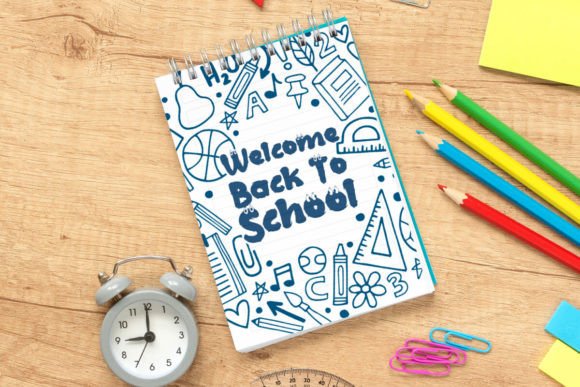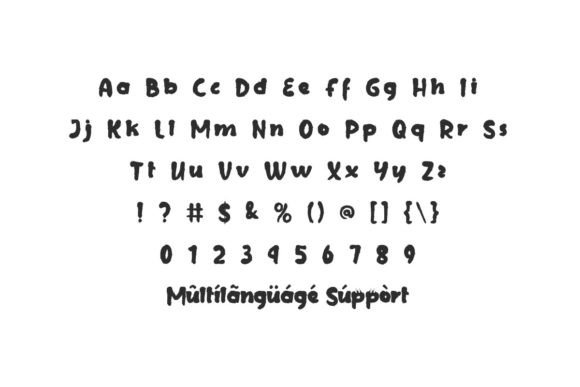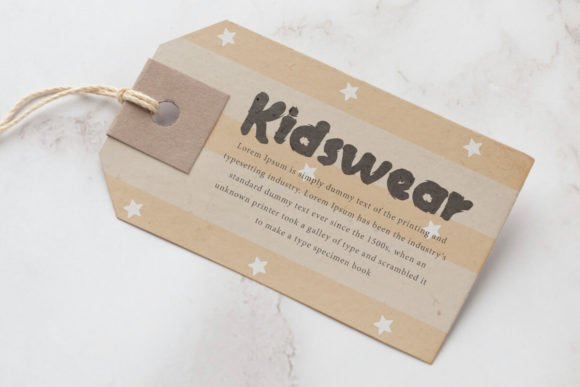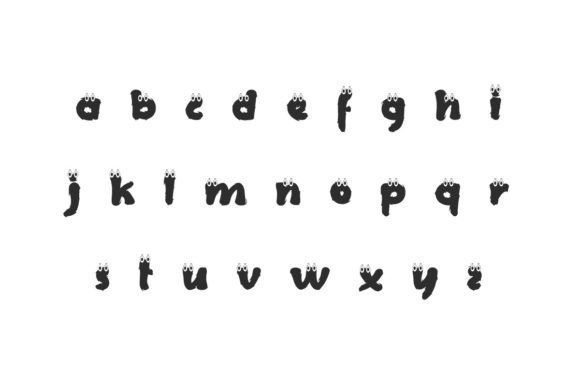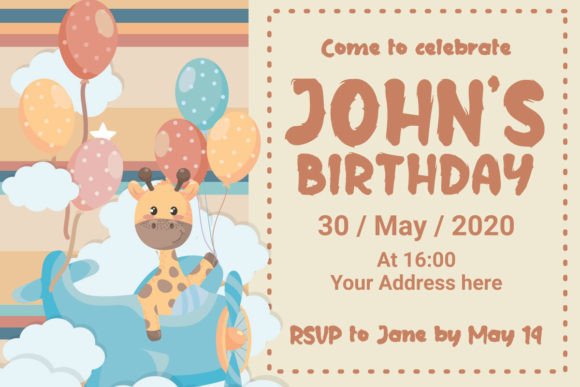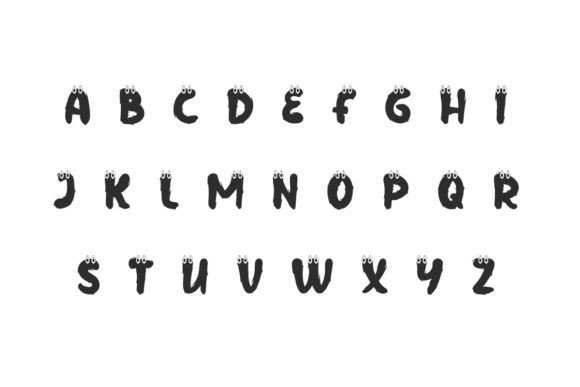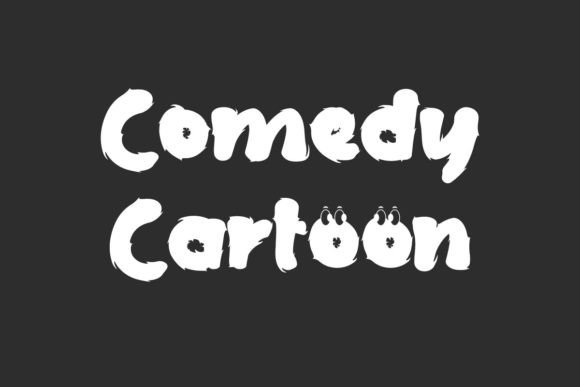
Introducing Comedy Cartoon Font: The Ultimate Playful Display Font for Designers
Are you tired of using the same old fonts for your designs? Look no further! Comedy Cartoon Font is here to add a dash of fun and quirkiness to your creations. Inspired by funny cartoon heroes, this font is perfect for designers and crafters who want to make their designs stand out.
What Makes Comedy Cartoon Font So Special?
Comedy Cartoon Font is a cute and playful cartoon display font that features quirky characters that you rarely encounter. These unique characters will add a touch of whimsy to your designs, making them look stunning and eye-catching. The best part? Despite its playful nature, this font is still easy to read, making it perfect for a wide range of applications.
The Versatility of Comedy Cartoon Font
One of the best things about Comedy Cartoon Font is its versatility. This font is suitable for many industries, including:
- Animation and film: Add a touch of cartoon magic to your movie and animation projects.
- Birthday parties: Create fun and playful invitations and decorations for kids’ birthday parties.
- Craft: Use Comedy Cartoon Font to add a personal touch to your handmade crafts and DIY projects.
- Event tenants: Create eye-catching signage and promotional materials for events and festivals.
- Fashion: Add a dash of whimsy to your fashion designs, such as t-shirts, hats, and more.
- Kids’ stuff: Create fun and engaging materials for kids, such as children’s books, activity sheets, and more.
- Photography: Use Comedy Cartoon Font to add a playful touch to your photo captions and graphics.
- Printing: Create fun and quirky prints, such as posters, flyers, and brochures.
- Publishing: Add a touch of personality to your book covers, magazines, and other published materials.
- School things: Create fun and engaging materials for students, such as worksheets, certificates, and more.
Why Designers and Crafters Love Comedy Cartoon Font
Comedy Cartoon Font is a favorite among designers and crafters for several reasons:
- Unique and playful characters: The quirky characters in this font will add a touch of personality to your designs.
- Ease of use: Despite its playful nature, Comedy Cartoon Font is easy to read and use, making it perfect for a wide range of applications.
- Versatility: This font is suitable for many industries and projects, making it a great addition to any designer’s toolkit.
- High-quality design: Comedy Cartoon Font is designed with high-quality craftsmanship in mind, ensuring that your designs look professional and polished.
How to Use Comedy Cartoon Font in Your Designs
Using Comedy Cartoon Font in your designs is easy! Here are a few tips to get you started:
- Pair it with other fonts: Combine Comedy Cartoon Font with other fonts to create a unique and eye-catching design.
- Use it for headlines and titles: The playful nature of this font makes it perfect for headlines and titles.
- Add graphics and illustrations: Comedy Cartoon Font pairs perfectly with graphics and illustrations, making it perfect for cartoon-style designs.
Comedy Cartoon Font is a unique and playful display font that is perfect for designers and crafters who want to add a touch of whimsy to their designs. With its quirky characters, ease of use, and versatility, this font is suitable for a wide range of industries and projects. Whether you’re creating materials for kids, designing fashion items, or crafting unique prints, Comedy Cartoon Font is the perfect choice. So why wait? Download Comedy Cartoon Font today and start adding a dash of fun and personality to your designs!